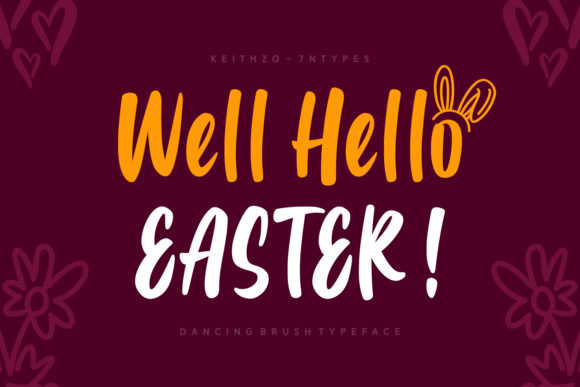
Embark on an enchanting Easter journey with the Well Hello Easter font, a captivating script font meticulously crafted by Keithzo (7NTypes), renowned for its ability to infuse designs with a touch of whimsy and delight. Experience the magic as this dancing brush font weaves its charm, transforming ordinary words into captivating expressions of joy.
Unleash your creativity and let the Well Hello Easter font guide you in creating stunning Easter-themed designs that will leave a lasting impression. With its playful and cheerful vibe, this font is the perfect choice for adding a touch of enchantment to invitations, cards, posters, and social media graphics.
Express your heartfelt Easter greetings with the Well Hello Easter font, allowing your words to come alive with a vibrant and energetic personality. Let the font's graceful curves and whimsical details add a personal touch to your Easter messages, conveying warmth, love, and the spirit of the season.
Dive into the world of DIY Easter decorations and let the Well Hello Easter font be your creative companion. Create personalized banners, buntings, and signs that reflect your unique style and add a festive touch to your Easter celebrations. The font's playful nature will bring a smile to everyone's face, making your decorations a cherished part of your Easter memories.
Indulge in the joy of crafting handmade Easter cards with the Well Hello Easter font as your artistic partner. Transform simple cardstock into exquisite expressions of love and friendship, adorned with heartfelt messages written in this charming font. The result will be a collection of cards that are not only visually appealing but also convey the warmth and sincerity of your Easter wishes.
With the Well Hello Easter font, you hold the key to unlocking a treasure trove of creative possibilities. Discover the joy of designing Easter-themed printables, such as gift tags, stickers, and coloring pages, that will engage and entertain children and adults alike. Let the font's playful spirit inspire you to create unique and memorable activities that capture the essence of Easter.
Embark on a journey of creative exploration with the Well Hello Easter font, and let your imagination soar. This font is not just a tool; it's a gateway to a world of creativity, where every design you create becomes a reflection of your unique artistic vision. Experience the transformative power of the Well Hello Easter font and let your creativity blossom this Easter season.